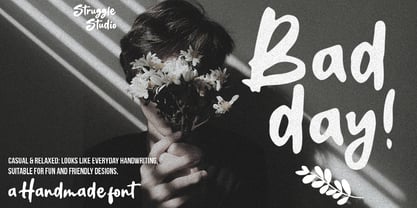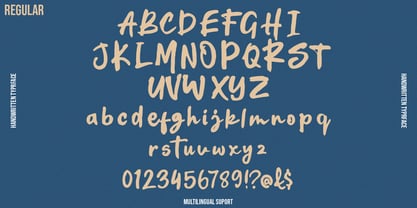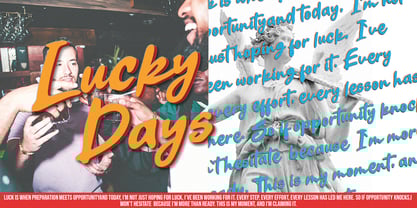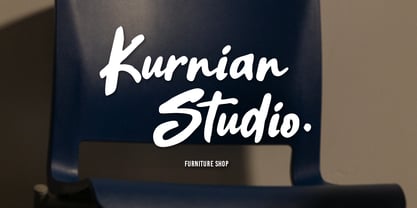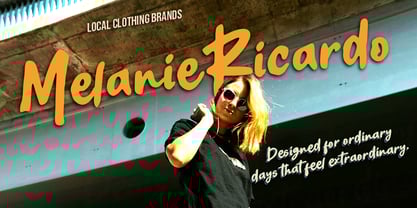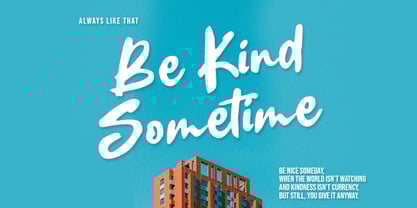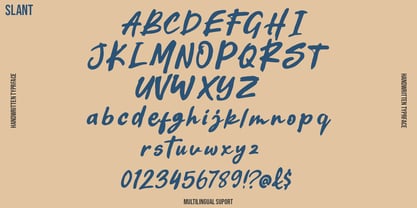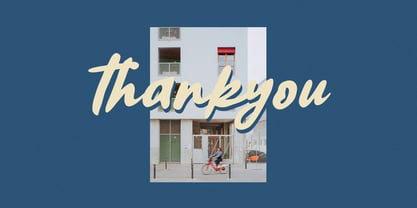
Bad Day
by Struggle Studio
The Bad Day Font Family was designed by Andri Kurniawan and published by Struggle Studio. Bad Day contains 2 styles and family package options. More about this family
Bad Day is a handwritten-style font that exudes a casual and relaxed vibe. With its look resembling everyday handwriting, this font is perfect for designs that aim to feel warm and friendly. Its rounded and expressive characters add a soft emotional touch while maintaining a playful charm, making it an ideal choice for creative projects such as daily quotes, posters, journals, handmade product branding, or social media content that wants to connect more closely with its audience.
Created by Struggle Studio, this is a handmade font that stands out for its uniqueness and fun personality. The design preview, featuring moody lighting and a delicate floral touch, emphasizes the emotional character of the font — perfect for expressing moods, whether melancholic or sweet.
Designers: Andri Kurniawan
Foundry: Struggle Studio